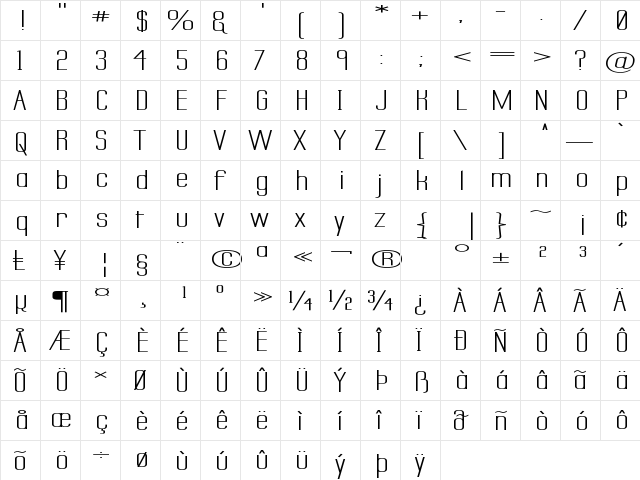
Labtop Secundo Superwide Regular
Design Context for Labtop Secundo Superwide Typeface
Labtop Secundo Superwide is a composed and adaptable typeface that performs quietly and consistently across a wide range of design contexts.